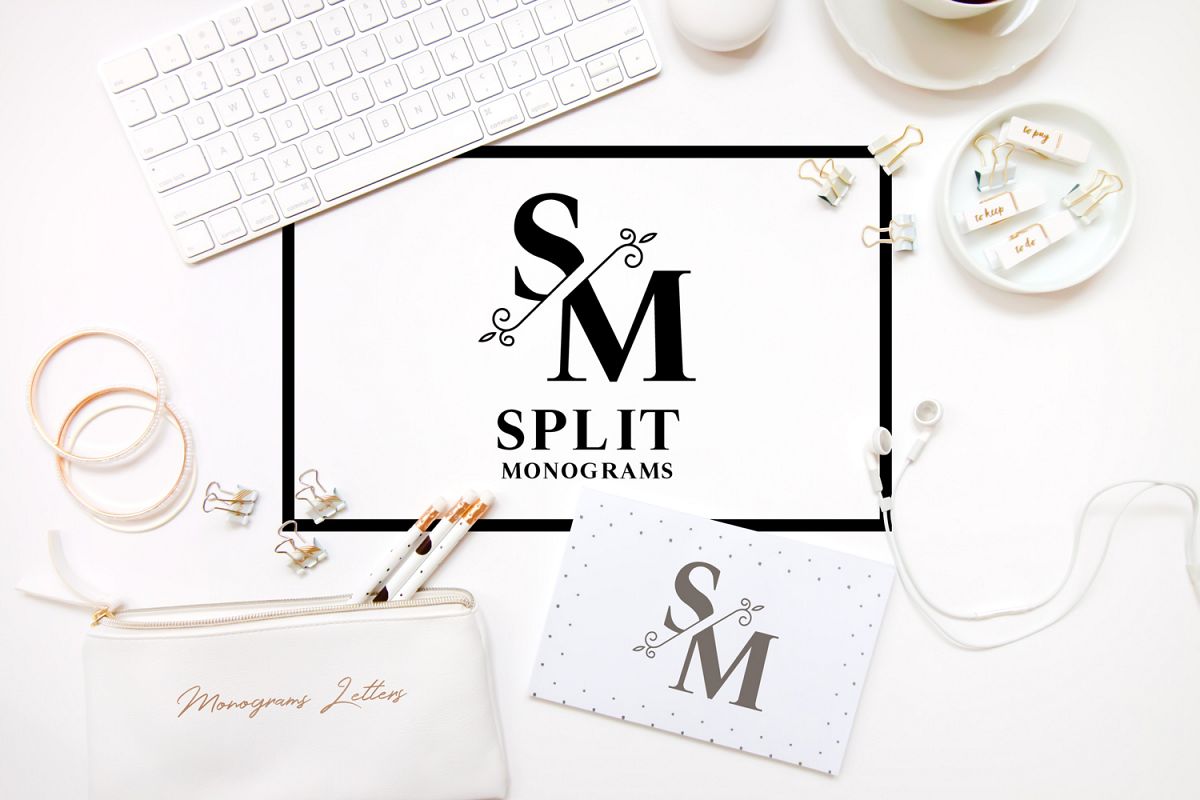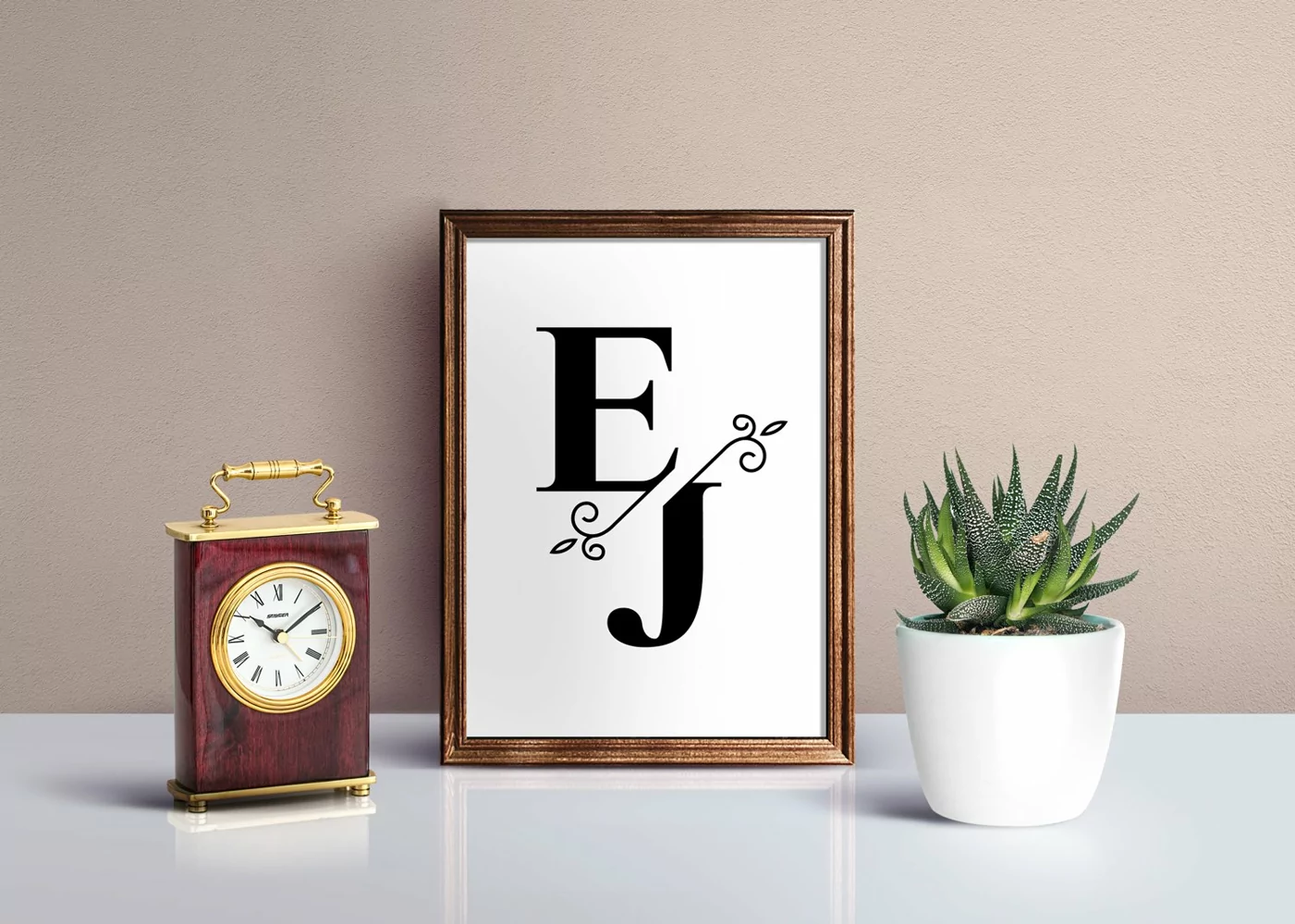
Split Monograms Font is a stunning font with split elegant monograms letters suitable for digital projects, cards, invitations, weddings, logos, website or crafts projects. Includes .otf. Perfect for magazine, news papers, posters, in branding, headers, invitations and save the dates, flyers, packaging, bags and so much more.